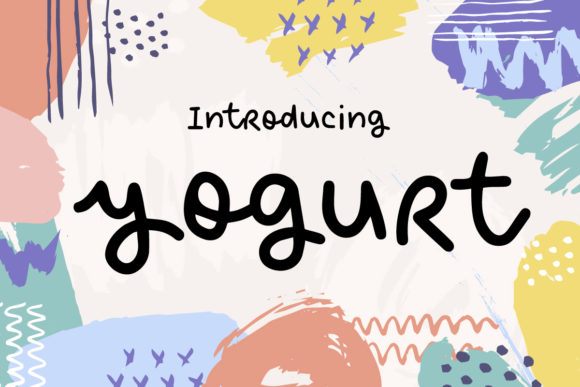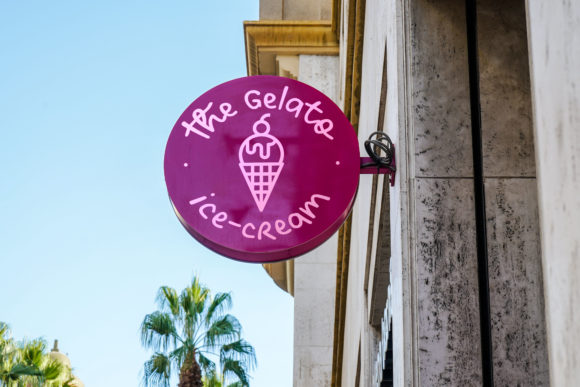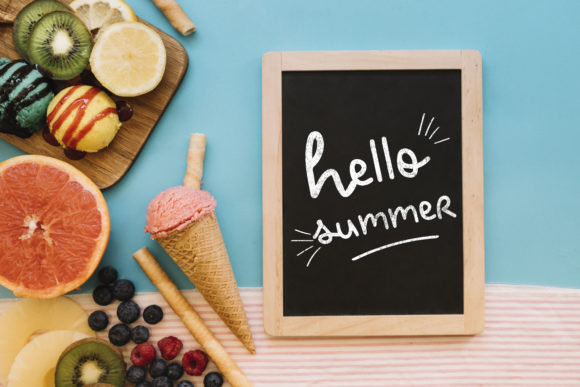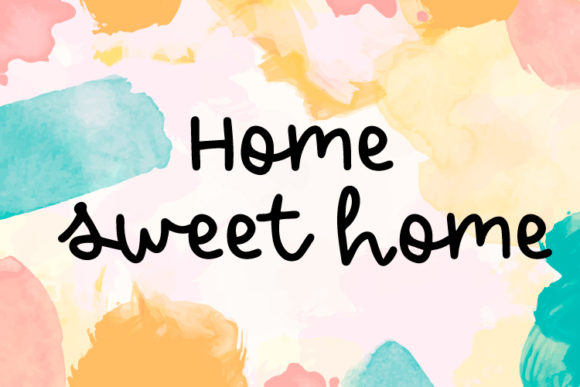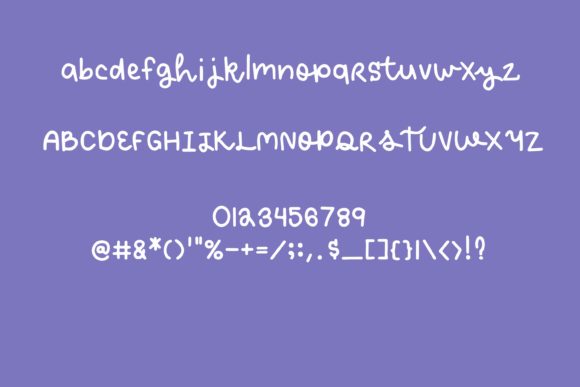
Yogurt Font
About Yogurt Font
Yogurt feels flowing and relaxed. It looks stunning on wedding invitations, thank you cards, quotes, greeting cards, logos, business cards and every other design which needs a handwritten touch.